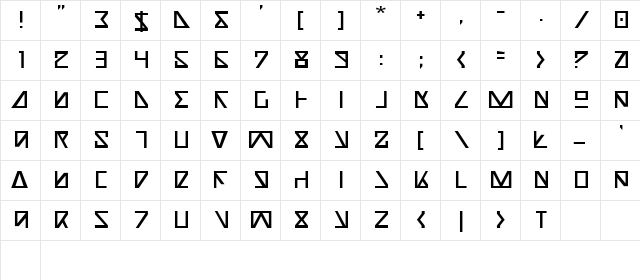
Nick Turbo Regular
Design Context for Nick Turbo Typeface
Nick Turbo is a composed and adaptable typeface that performs quietly and consistently across a wide range of design contexts.